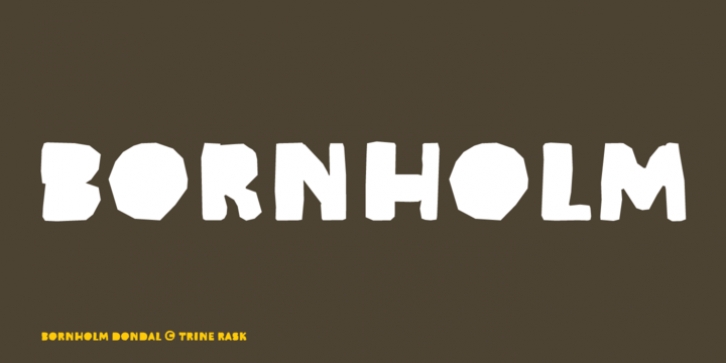
Bornholm Dondal is named after a valley »Dondal« on the only rocky island in Denmark »Bornholm«. It is the fourth face in a series of rough stone cut typefaces, that shares proportions, but differs in any other aspect like different pieces of rock.
It is a powerful face, but still very friendly. Good for very big sizes, but can be used for small texts, movie titles, cartoons …